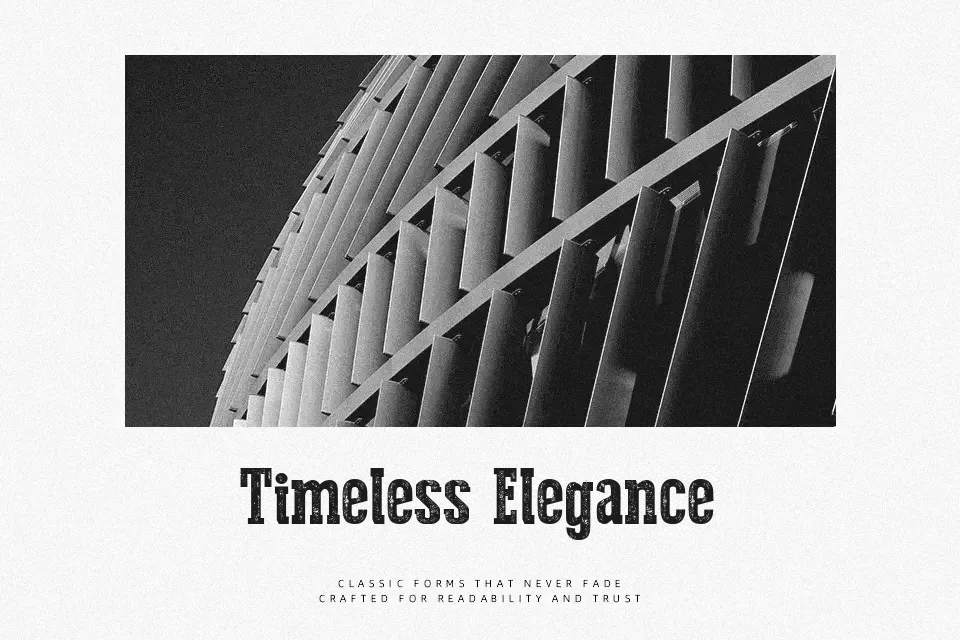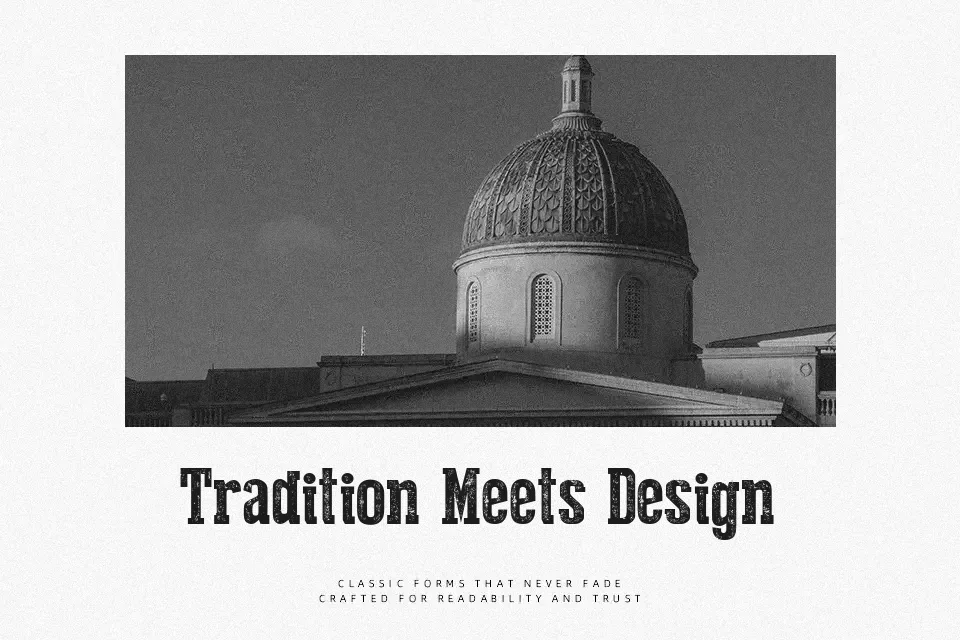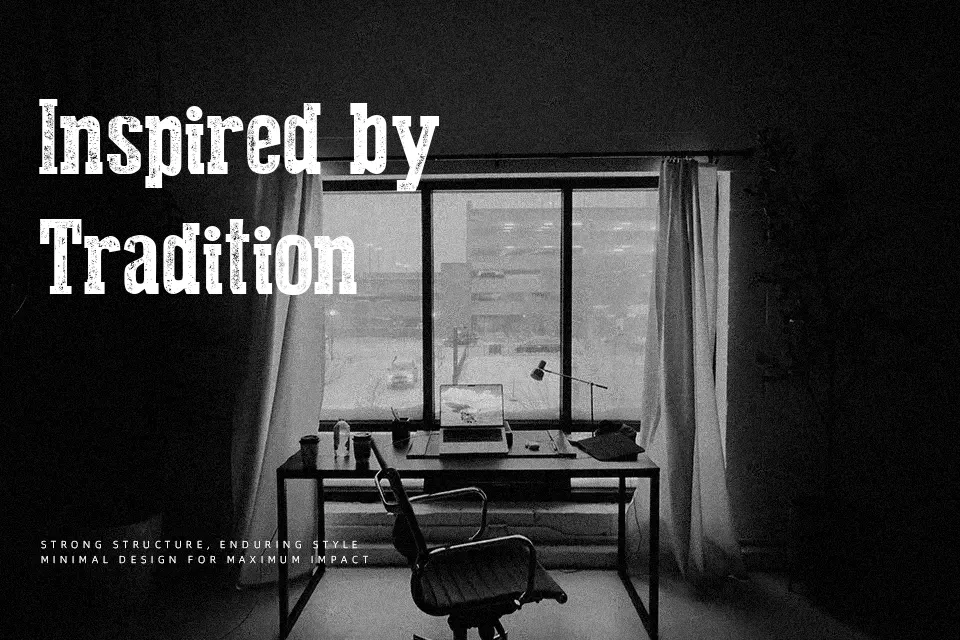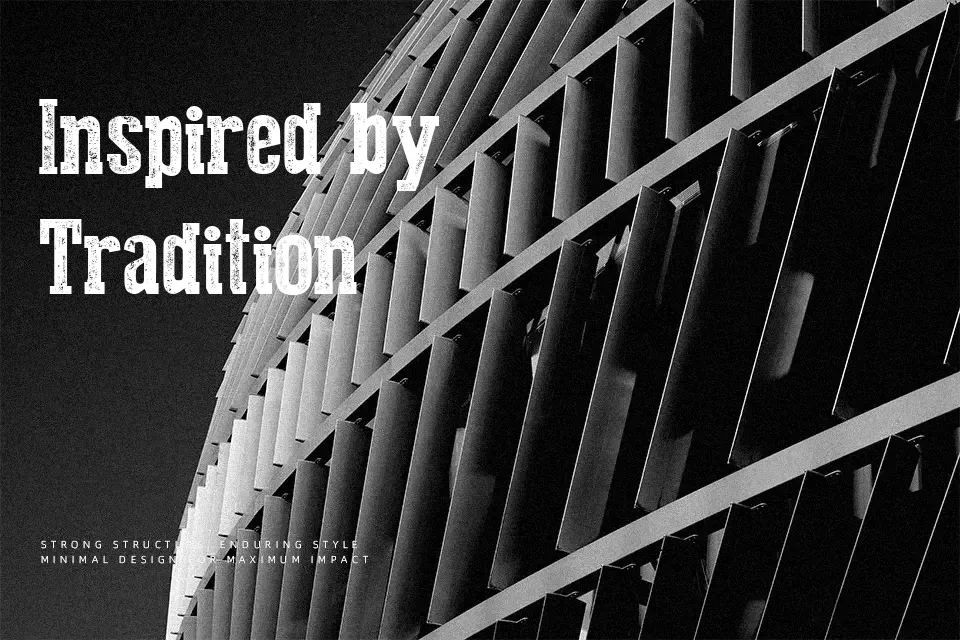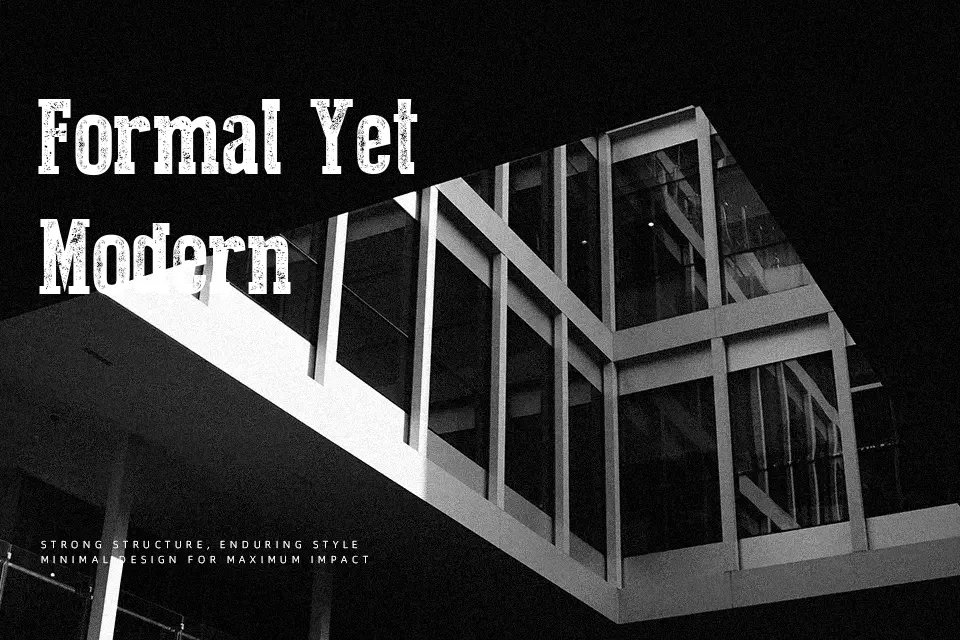
Press Style Serif Font
A bold poster headline benefits greatly from the weathered authenticity of Press Style Serif Font. The letterforms display classic proportions combined with a heavily distressed, letterpress texture that gives the design a rugged and historical character. The uneven edges and eroded internal strokes create a striking visual rhythm when used in large applications, adding immediate impact to the text. While the structural foundation remains traditional, the highly textured finish limits its readability at smaller scales. The decorative erosion becomes muddy and dense in long paragraphs, making this typeface best reserved for prominent, attention-grabbing titles rather than continuous reading.
vintage product packaging
retro music festival posters
apparel branding graphics
coffee shop menu headers
Perfect for branding, headline, and packaging, with a grunge and decorative style.